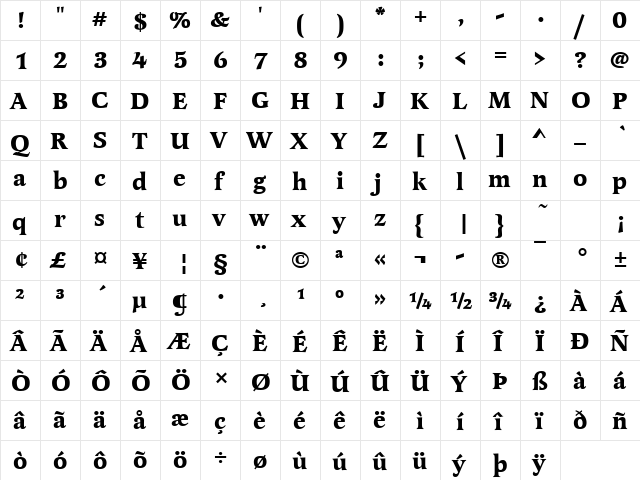
Latienne Becker Bold
Design Context for Latienne Becker Typeface
Latienne Becker is a composed and adaptable typeface that performs quietly and consistently across a wide range of design contexts. Its bold stroke weight gives it real presence on the page.